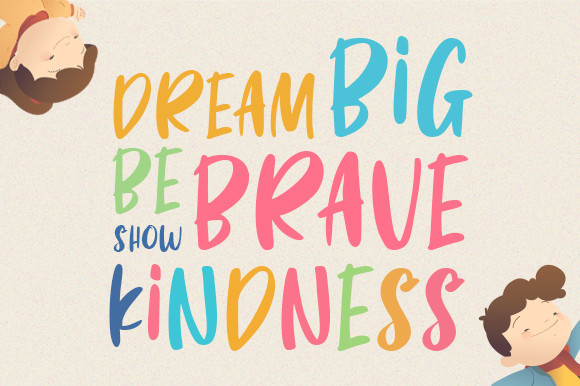
Cuddly Kid Font
Cuddly Kid is a cute and casual handwritten font with an incredibly friendly feel. Whether you’re looking for fonts for social media or calligraphy scripts for DIY projects, Cuddly Kid will turn any creative idea into a true piece of art!